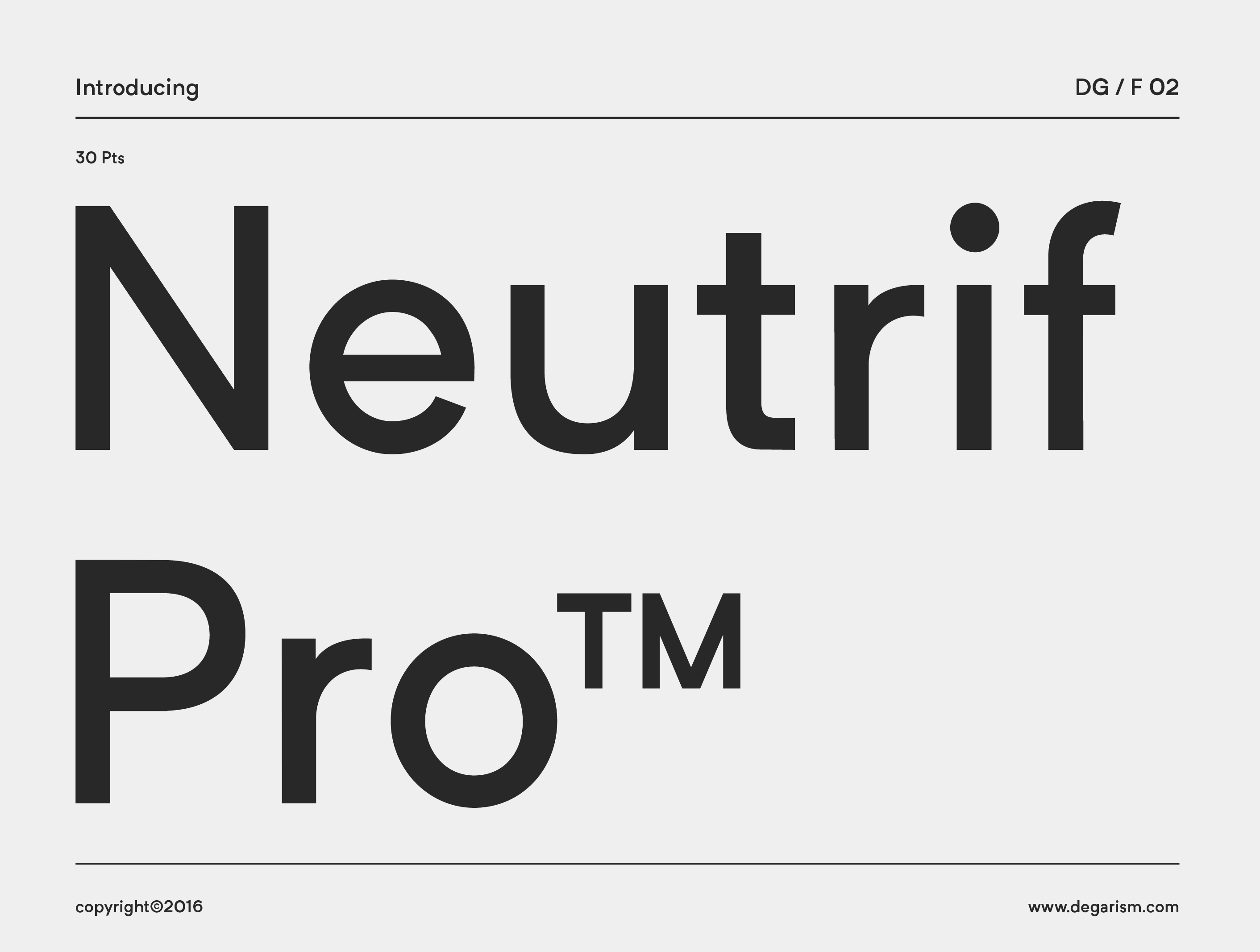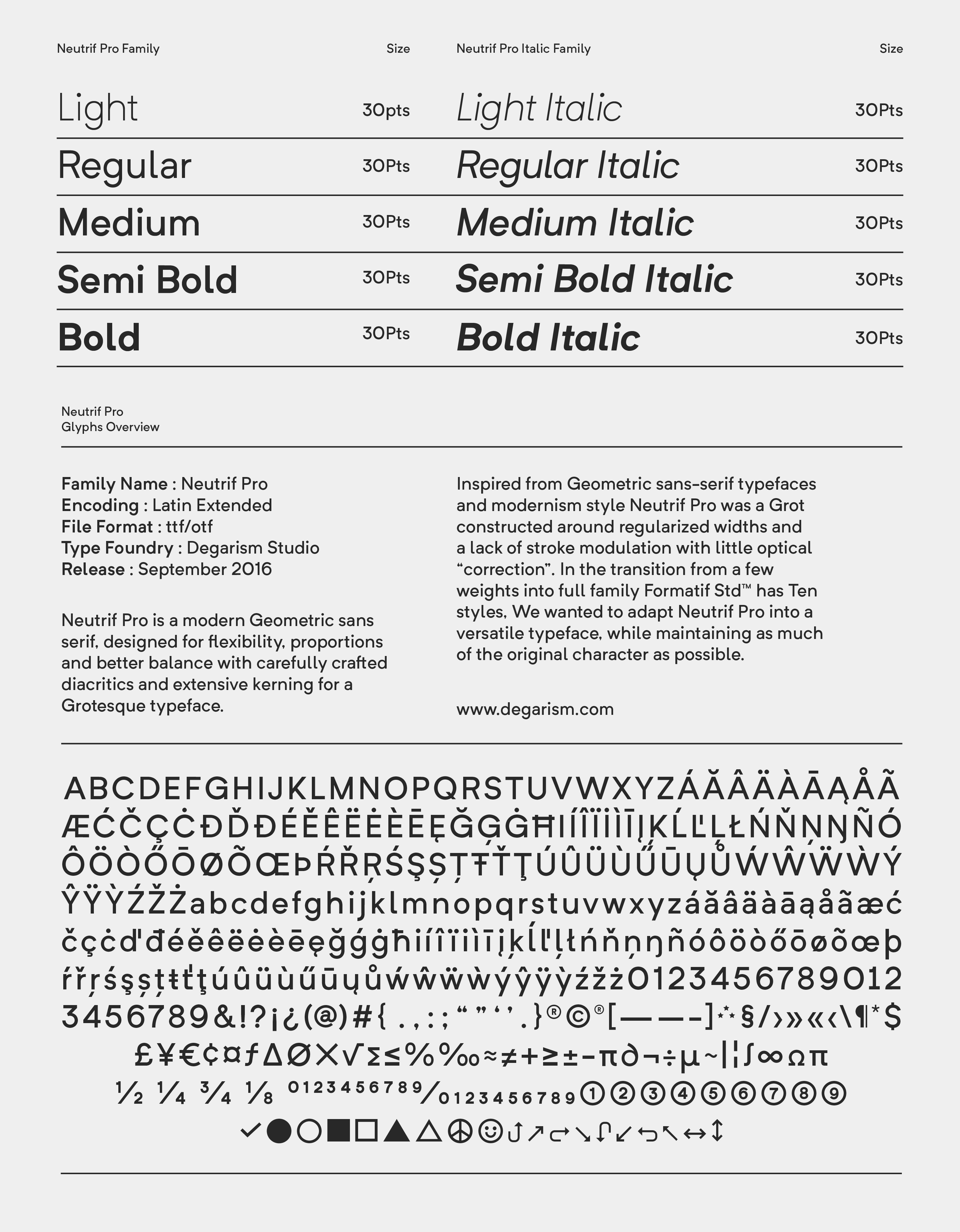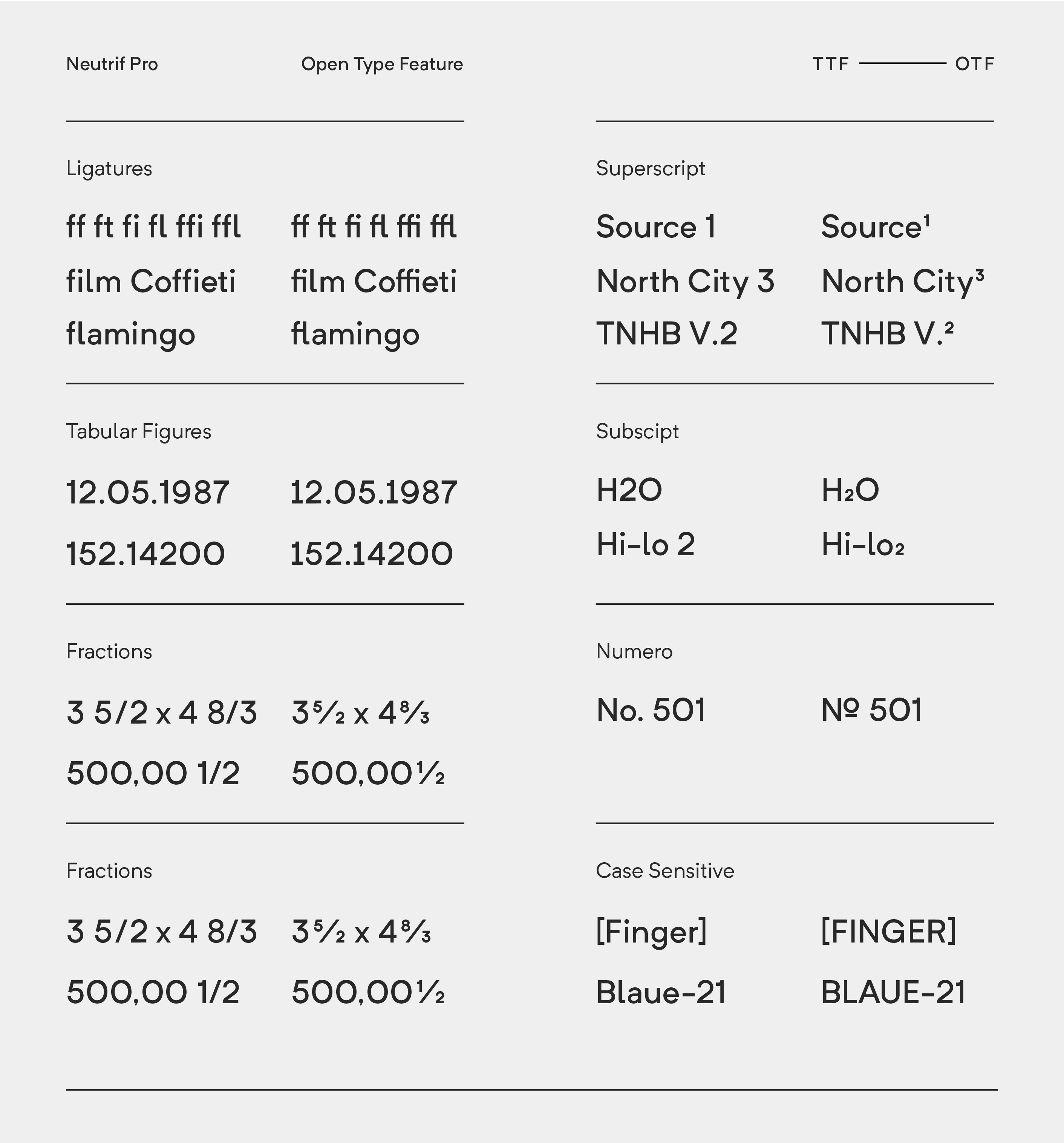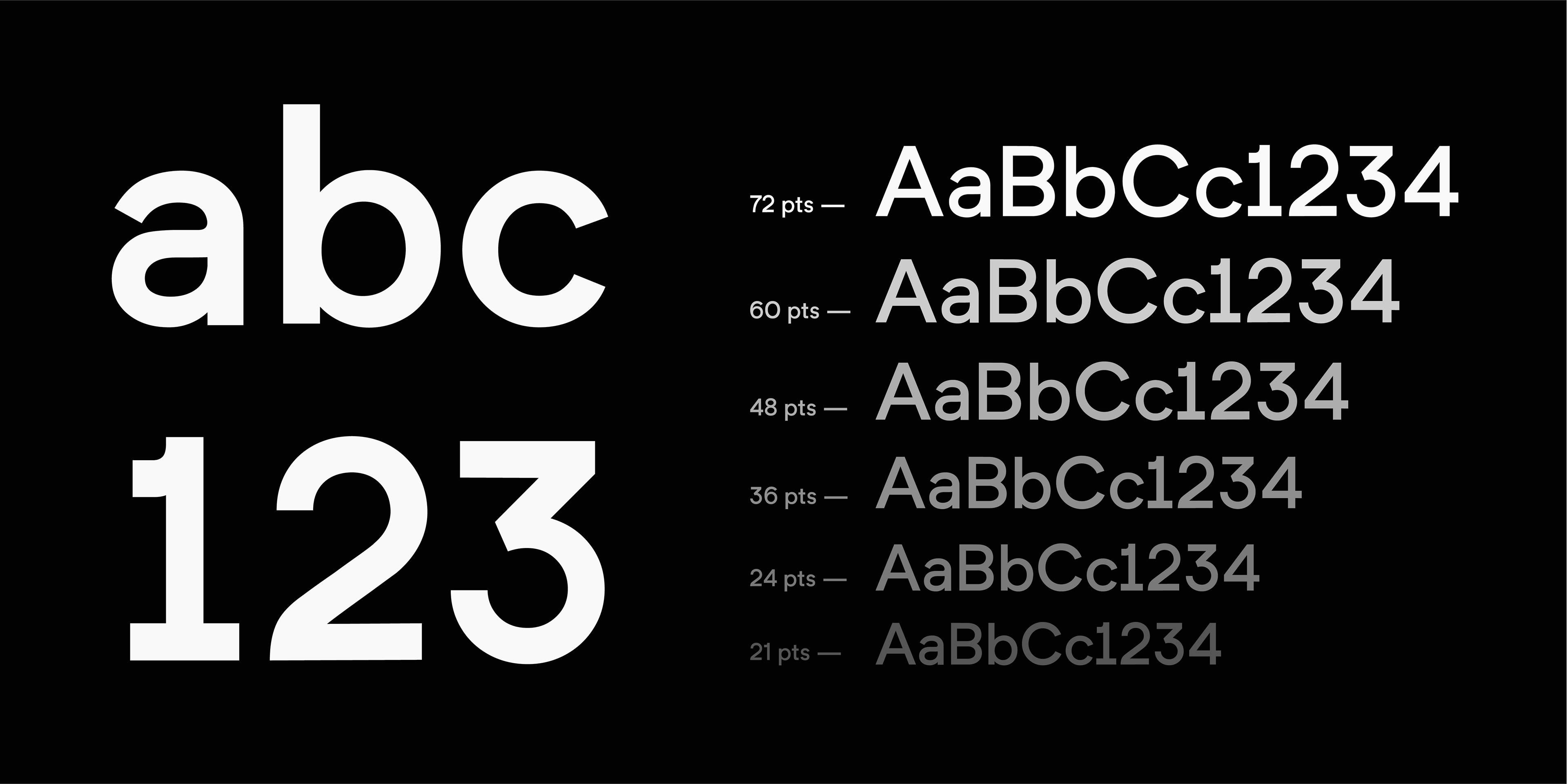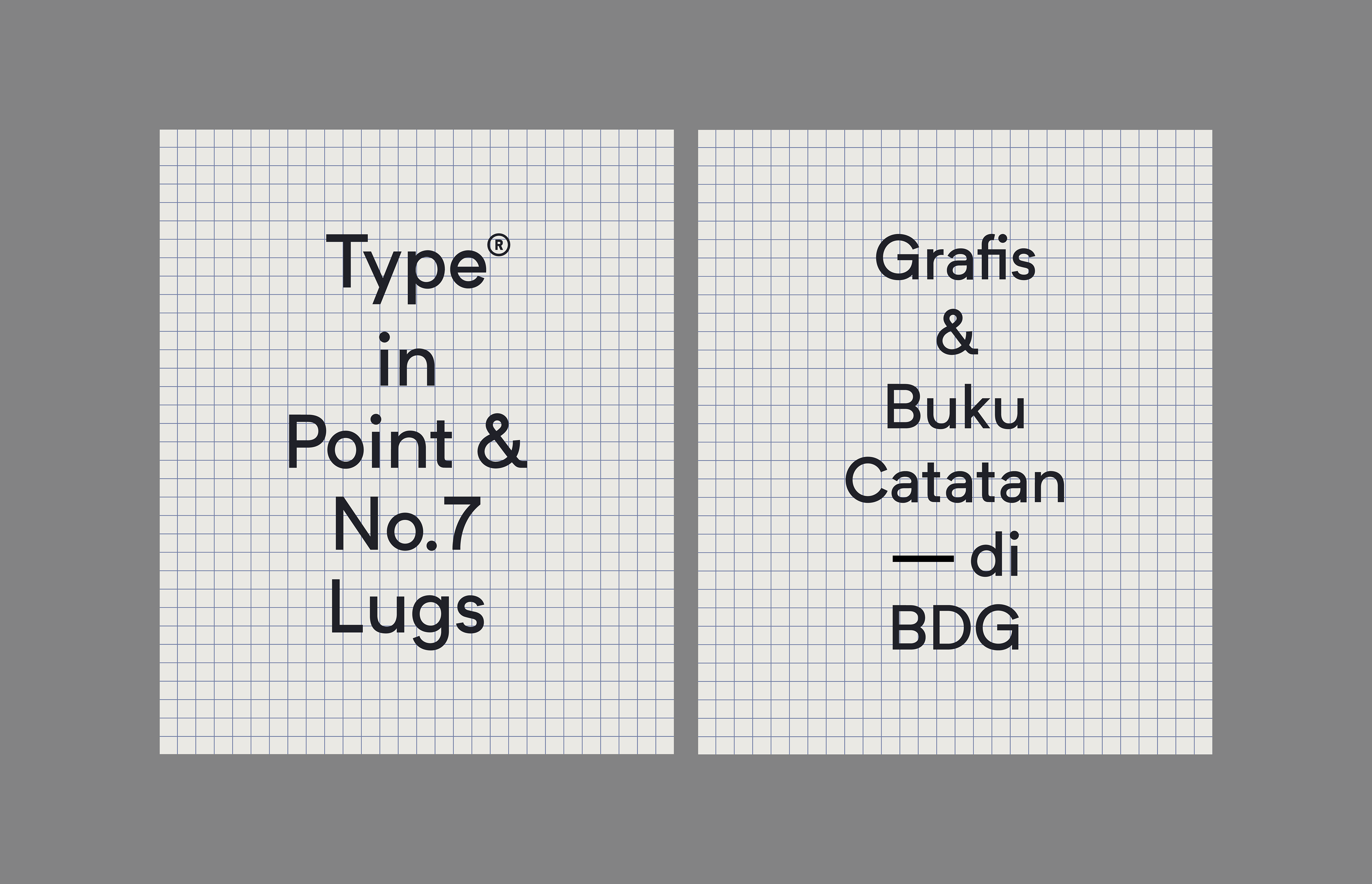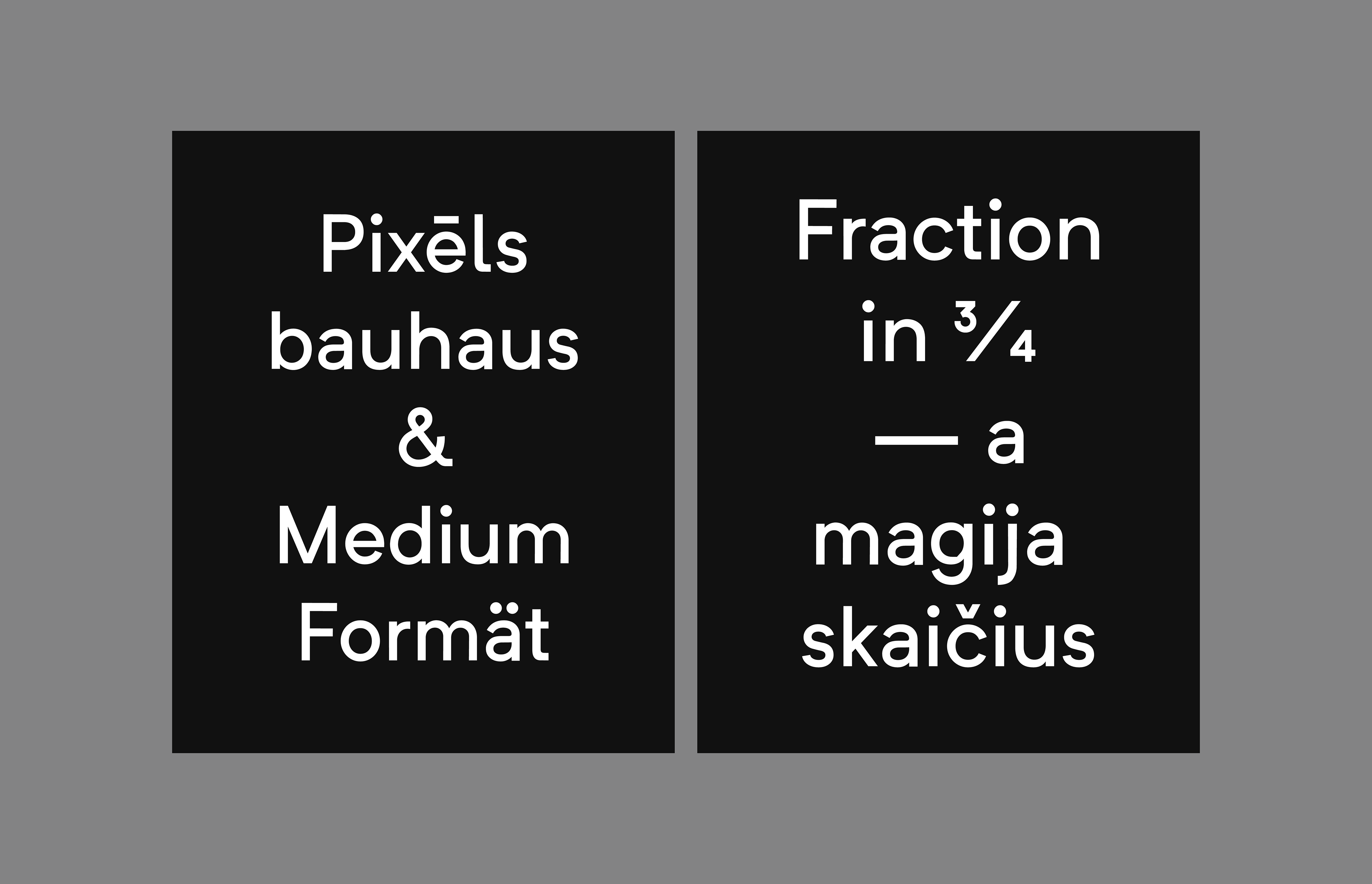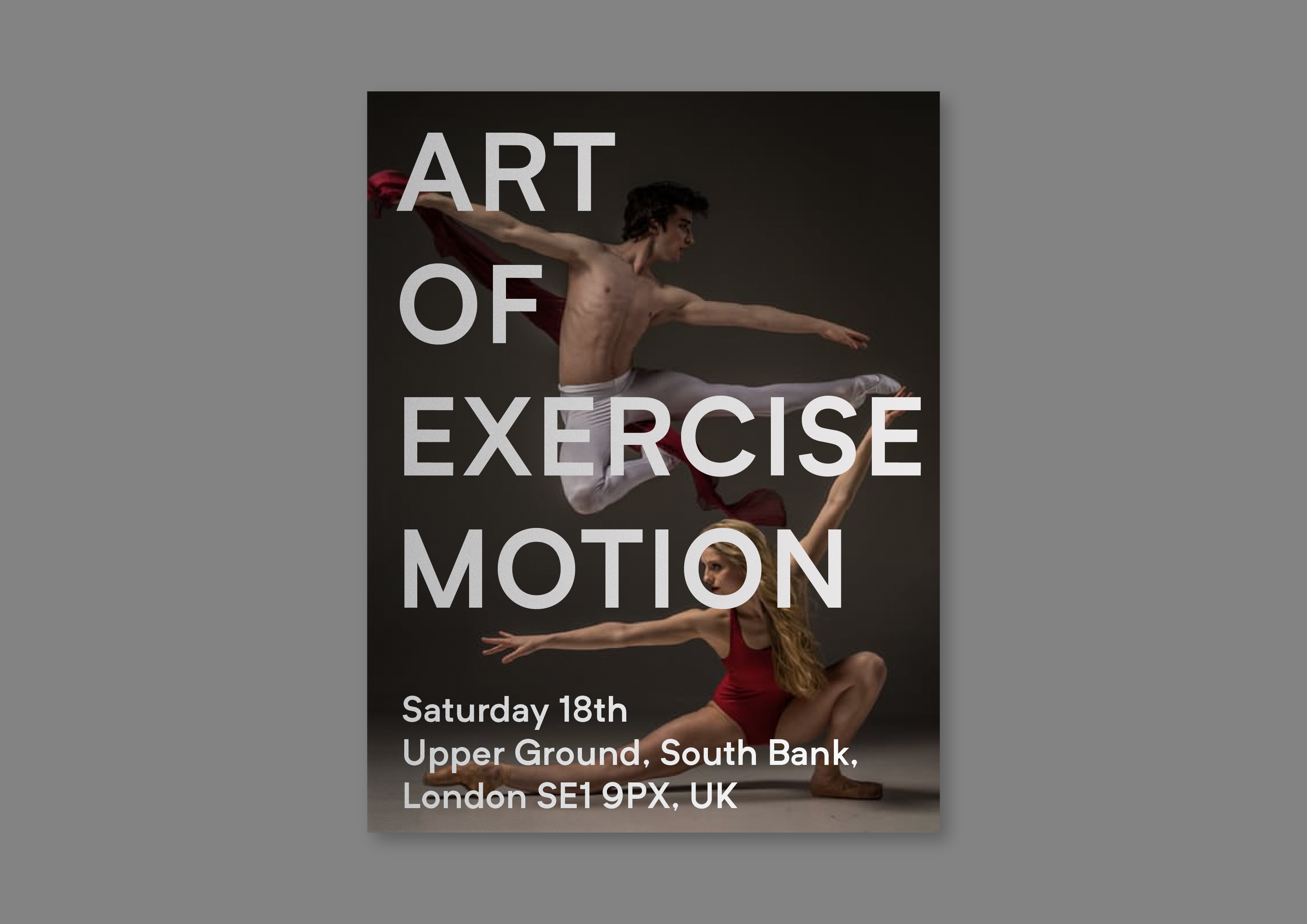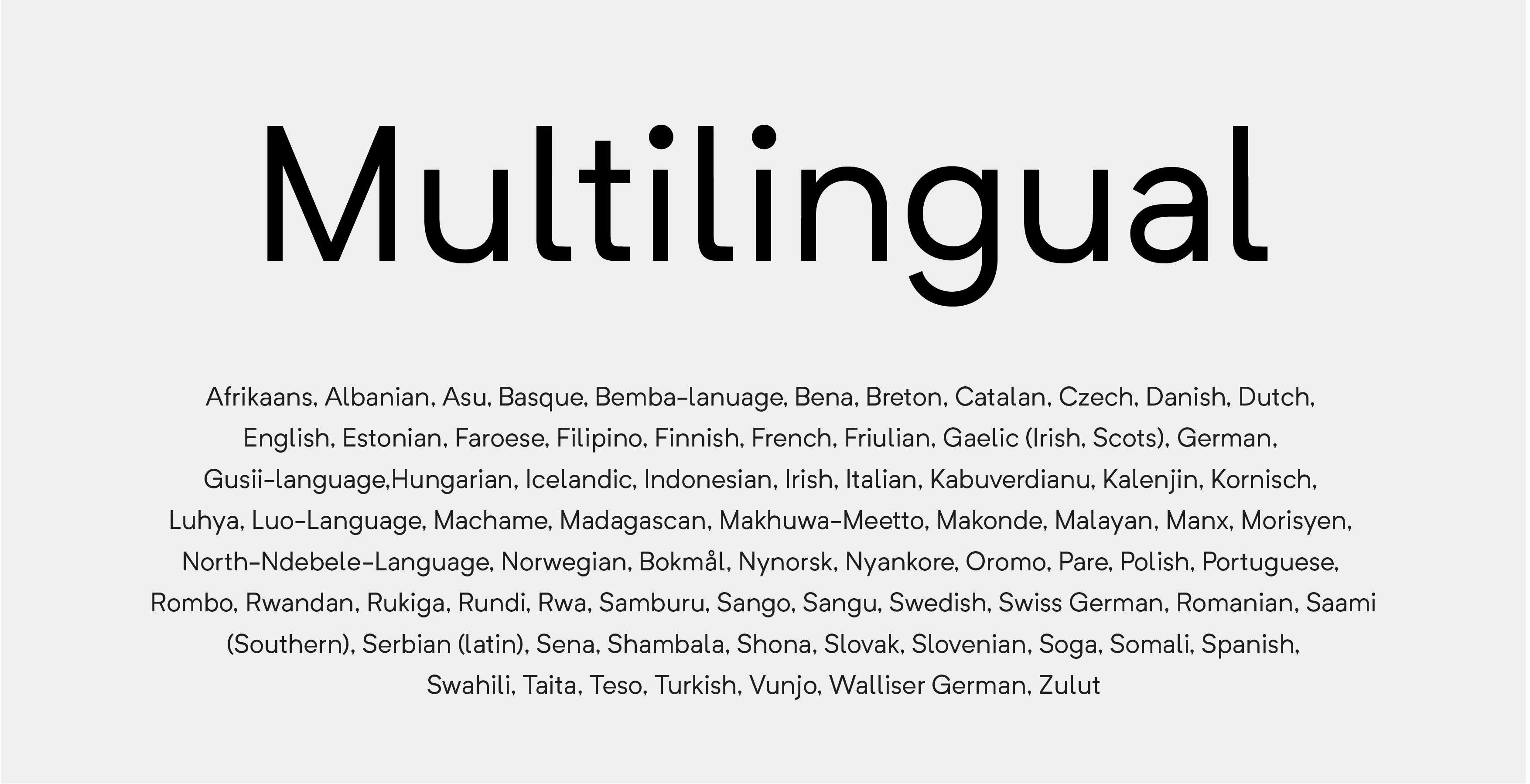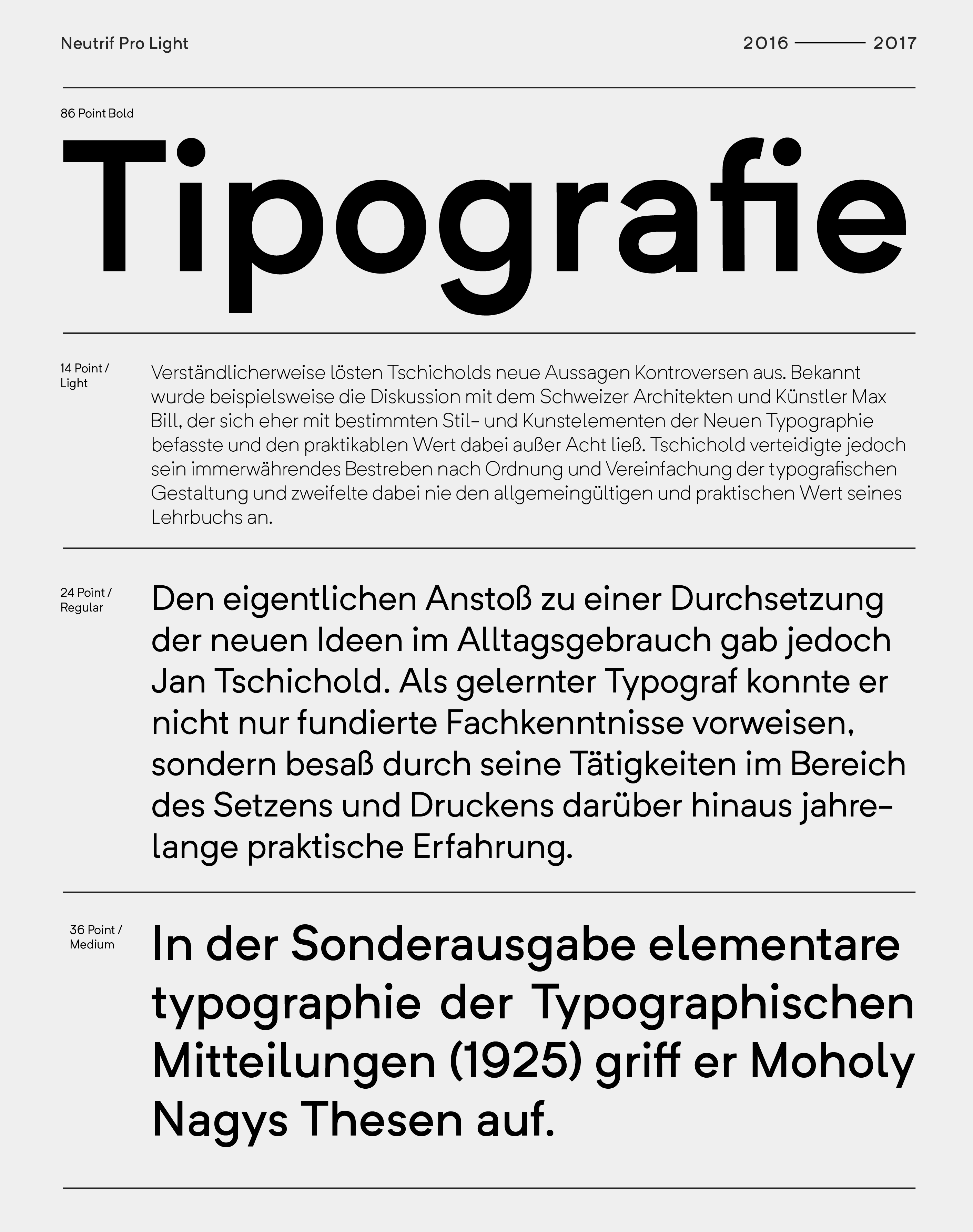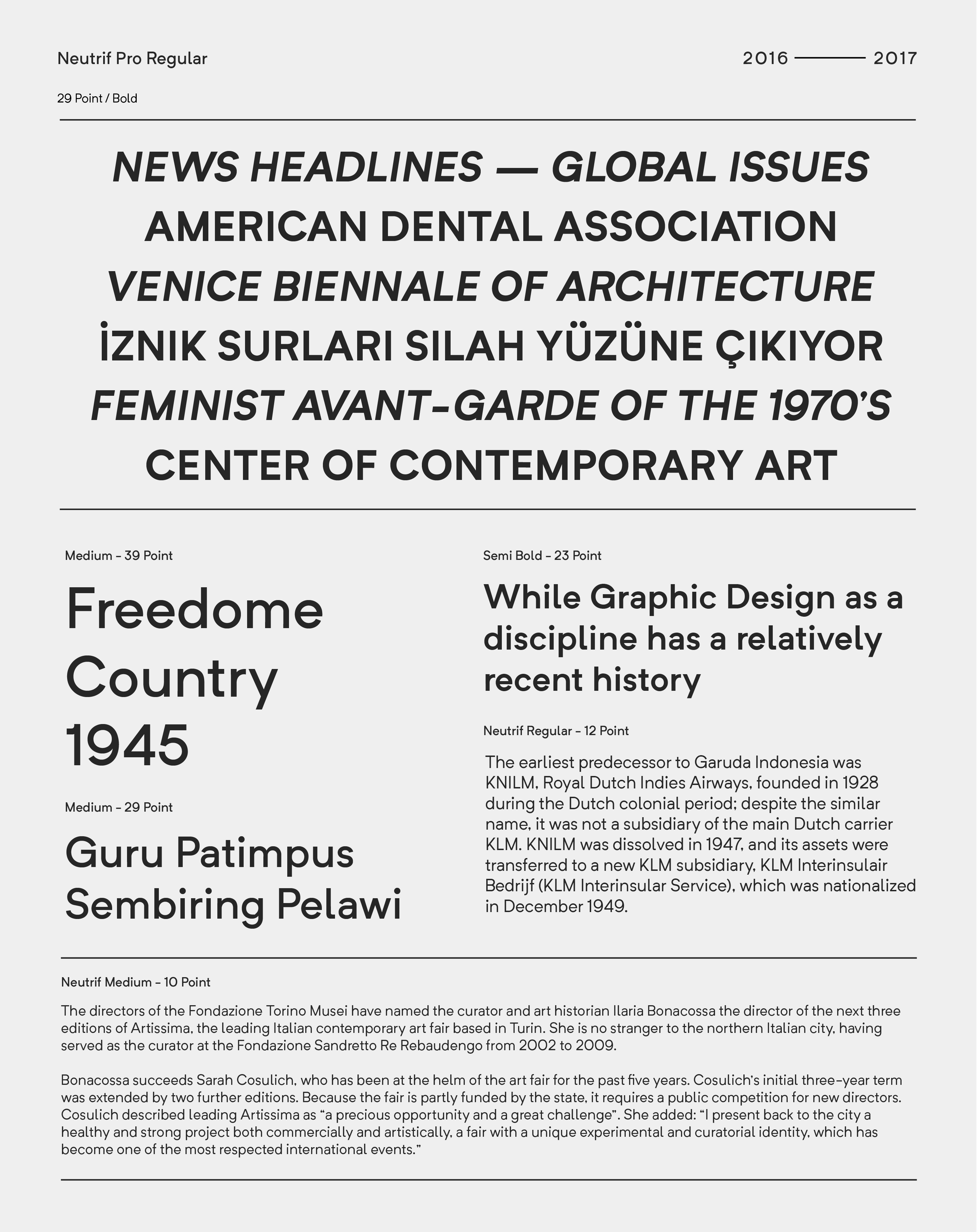
Neutrif Pro/u2122 is a modern style sans serif, designed for flexibility, proportions and better balance with carefully crafted diacritics and extensive kerning for a Grotesque typeface. Inspired from Geometric sans-serif typefaces and modernism style Neutrif Pro/u2122 was a Grot constructed around regularized widths and a lack of stroke modulation with little optical /u201ccorrection/u201d. In the transition from a few weights into full family Neutrif Pro/u2122 has Ten styles, We wanted to adapt Neutrif Pro/u2122 into a versatile typeface, while maintaining as much of the original character as possible.